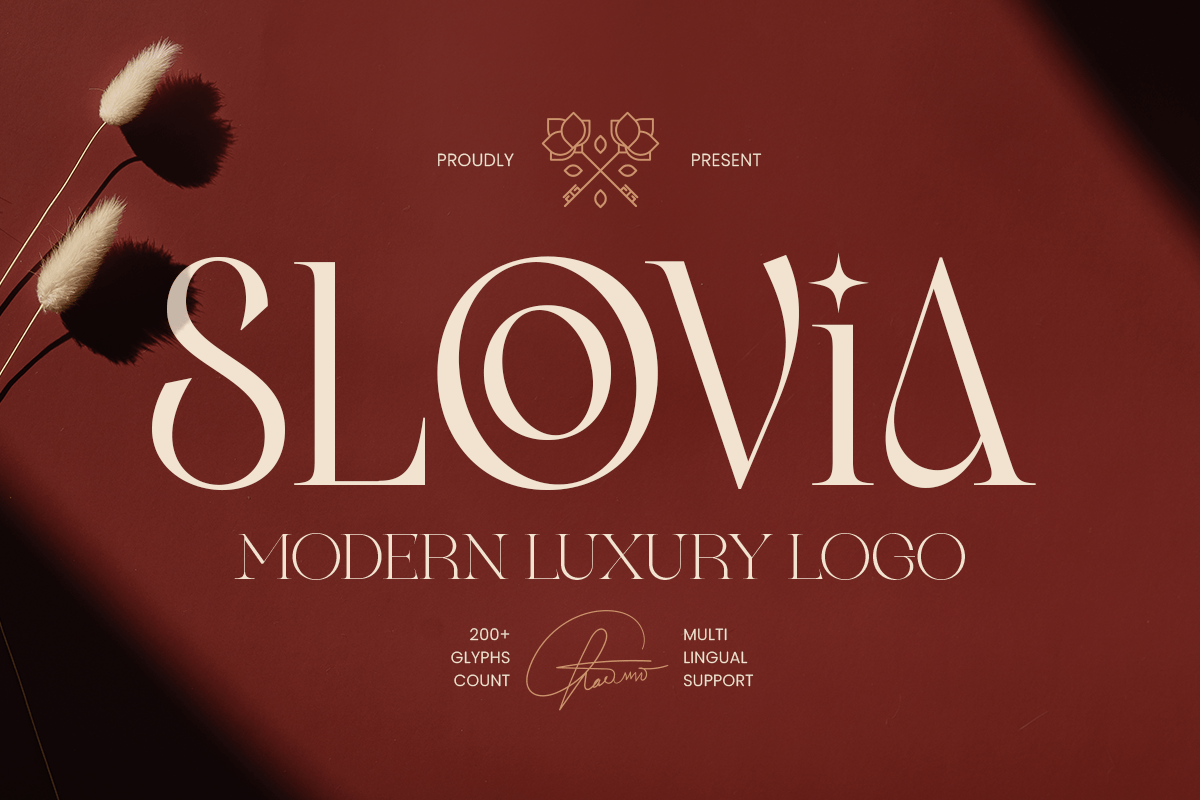
Sloovia
-Modern Luxury Logo Font
Sloovia
Sloovia - Modern Luxury Logo Font
SLOOVIA is a modern luxury logo font designed to deliver refined sophistication with a clean contemporary edge. Featuring polished letterforms, balanced proportions, and a confident visual rhythm, this typeface creates a premium tone that feels stylish, timeless, and instantly brand-ready.
Built for logo-focused branding, SLOOVIA works beautifully across wordmarks, brand identity systems, website headers, editorial layouts, packaging, labels, invitations, signage, presentations, and upscale marketing visuals. Its modern luxury structure keeps every composition clear and polished while adding a high-end visual presence across both digital and print design.
Whether you’re building a fashion identity, developing a beauty brand, designing premium packaging, or crafting elegant promotional materials, SLOOVIA provides a sophisticated typographic foundation that makes your branding feel polished, exclusive, and unforgettable.
Inspiration Behind SLOOVIA
SLOOVIA is inspired by contemporary luxury branding and refined logo typography—where elegant structure, visual balance, and premium simplicity create timeless identity systems. The design focuses on polished rhythm and sophisticated clarity to support upscale wordmarks and high-end branding with a modern professional edge.
SLOOVIA Font Features:
• Modern luxury letterforms optimized for logo and wordmark design
• Elegant structure with premium, high-end visual character
• Strong readability for branding, headlines, and editorial layouts
• Perfect for luxury brand identity and premium visual communication
• Luxury logos, wordmarks, and premium brand identity systems
• Fashion, beauty, skincare, fragrance, and boutique branding
• Editorial layouts, magazine covers, and elegant headline typography
• Premium packaging, labels, invitations, and upscale stationery
• Social media campaigns, websites, presentations, and marketing assets
Elevate your premium identity with SLOOVIA—a modern luxury logo font made for elegant, timeless branding. ✨